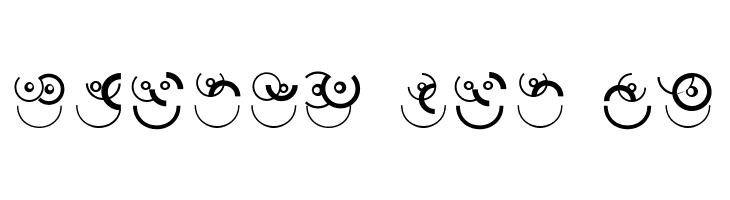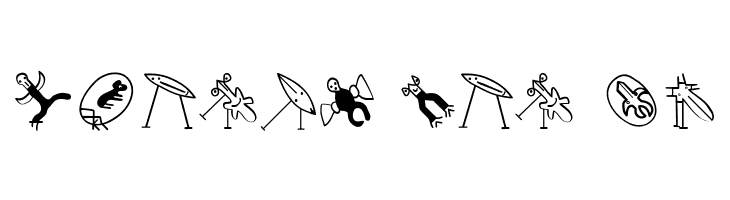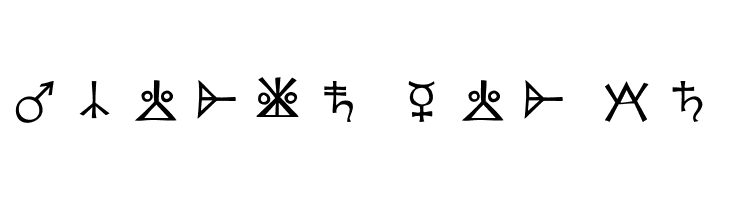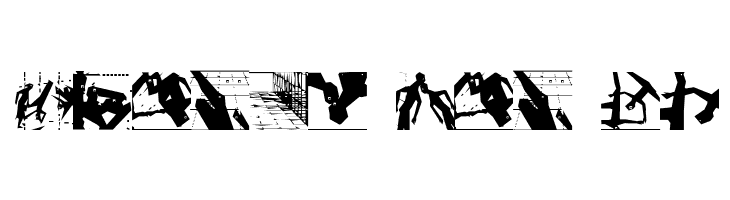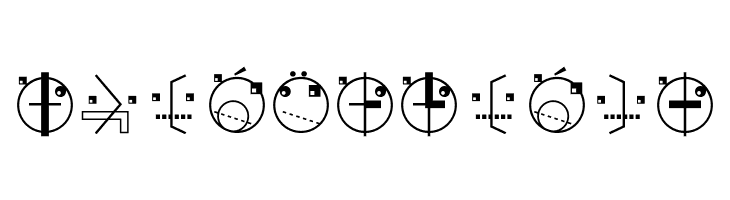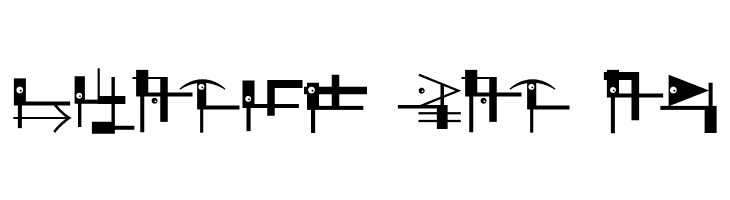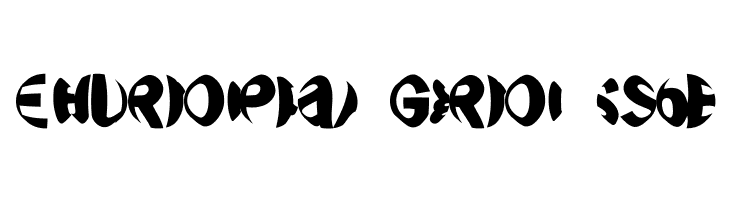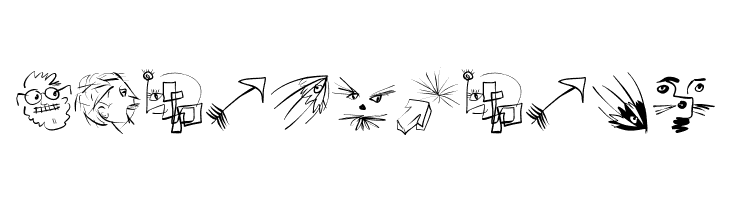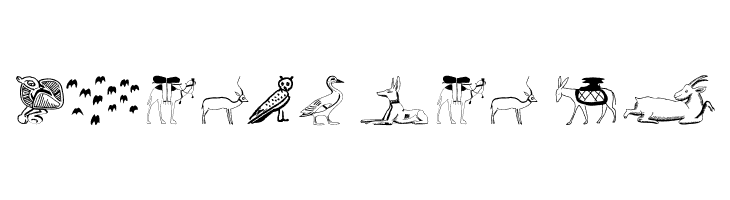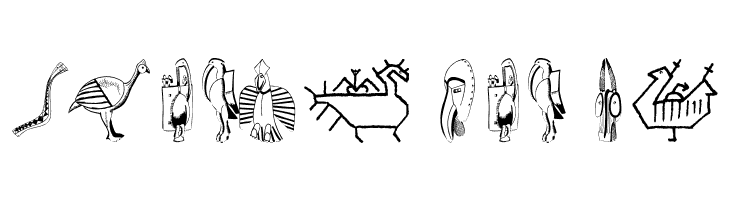
A decorative font with abstract, face-like characters formed by bold circular elements.
A playful, decorative font featuring abstract animal-like symbols.
A collection of abstract and geometric symbols with a mystical and historical flair.
An artistic font with abstract, dance-inspired silhouettes forming each character.
An abstract, geometric font inspired by Suprematism, featuring bold shapes and lines.
An abstract, geometric font inspired by Suprematism, featuring bold, angular shapes.
A bold, abstract display font with high contrast and geometric patterns.
A quirky, hand-drawn dingbat font with abstract illustrations.
A collection of tribal-inspired illustrations featuring animals and abstract figures with intricate patterns.
Intricate tribal designs featuring animal motifs and abstract forms with bold lines and cultural symbolism.